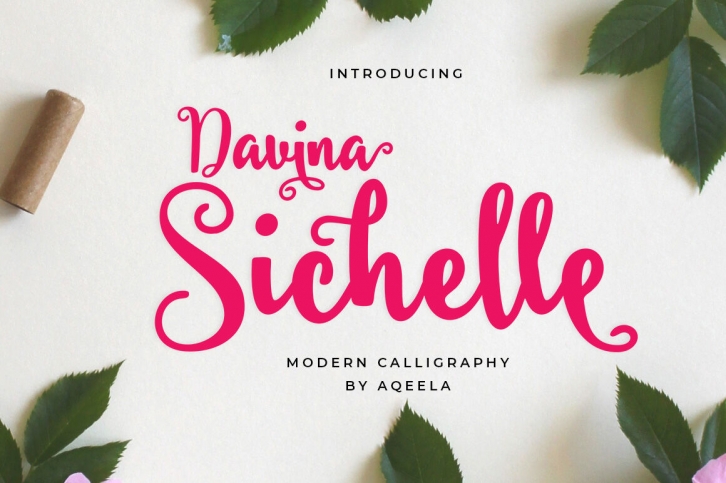
Introducing Davina Sichelle. It comes with an elegant, cute and feminine style which is perfect to make any design stand out! This font is perfect for branding, wedding invites, magazines, mugs, business cards, quotes, posters, and more.
Passion Type Features:
Uppercase
Lowercase
Numerals & Punctuations
PUA Encoded
Ligatures
Suitable for Headlines, Logotypes, Signs, Posters, Letterhead, T-Shirt and many more.
Support International Language